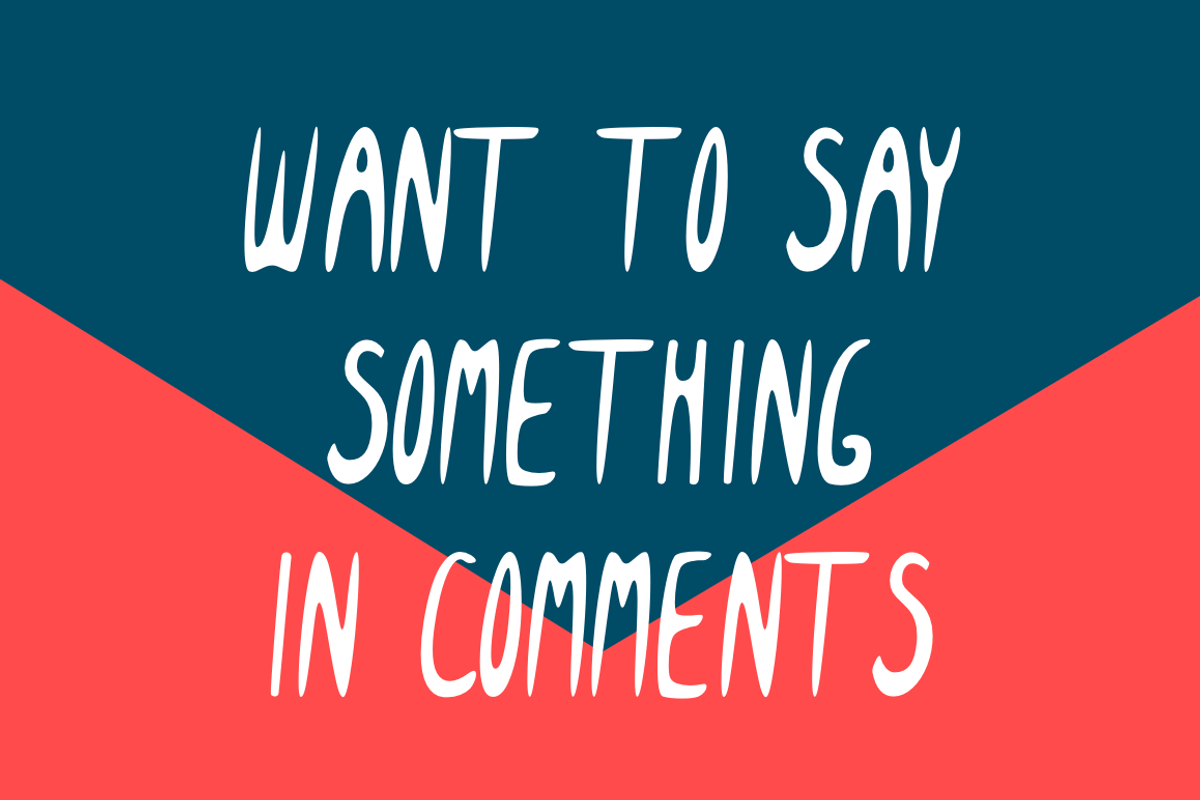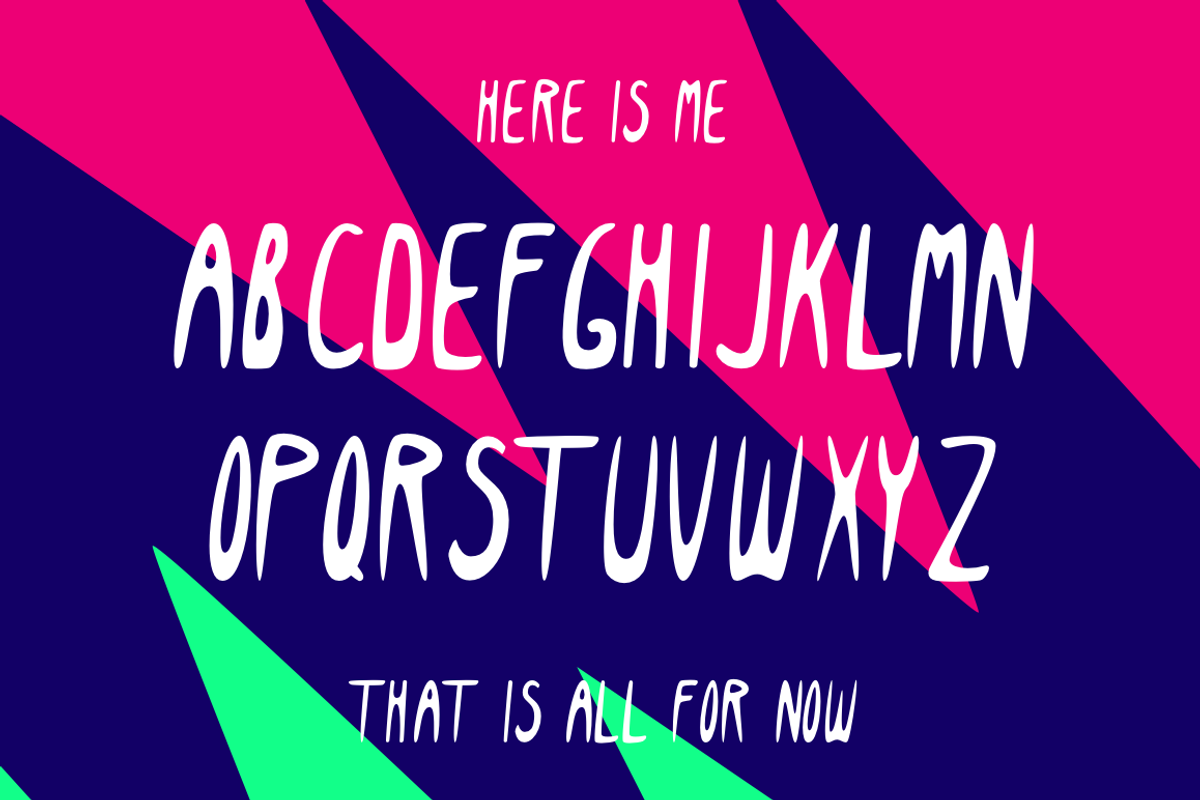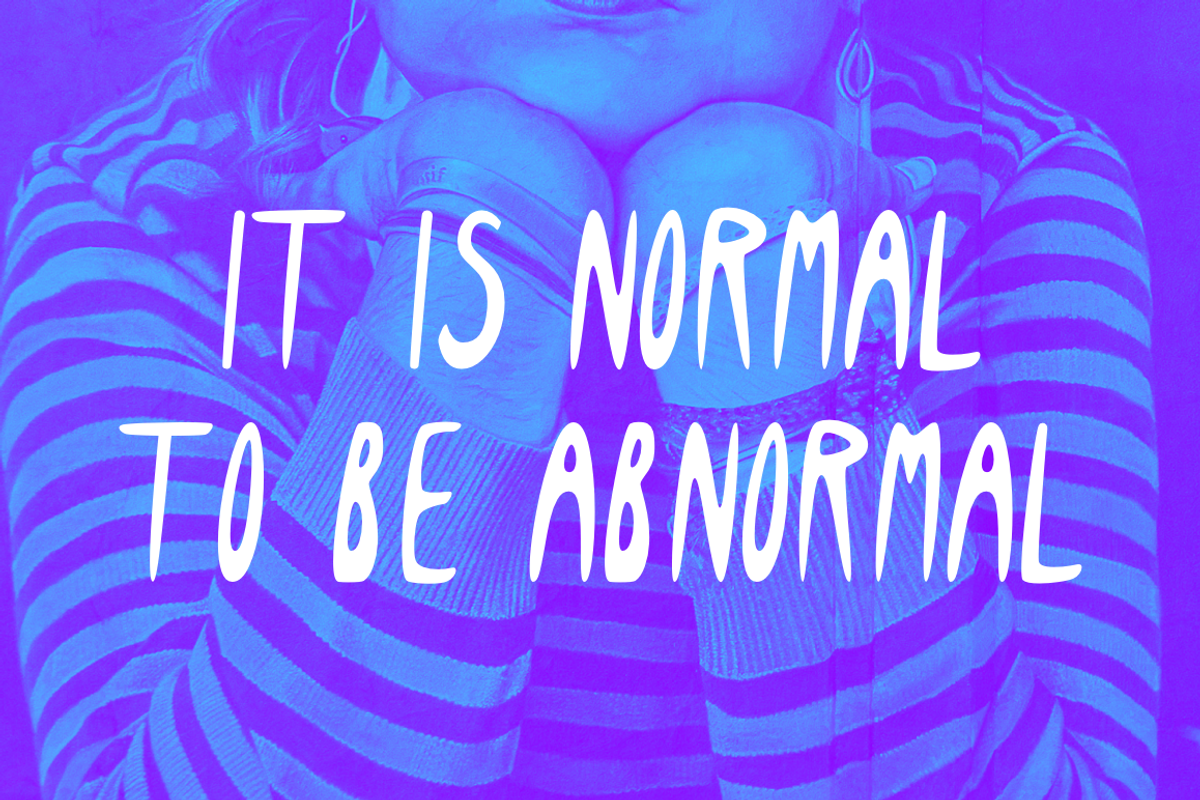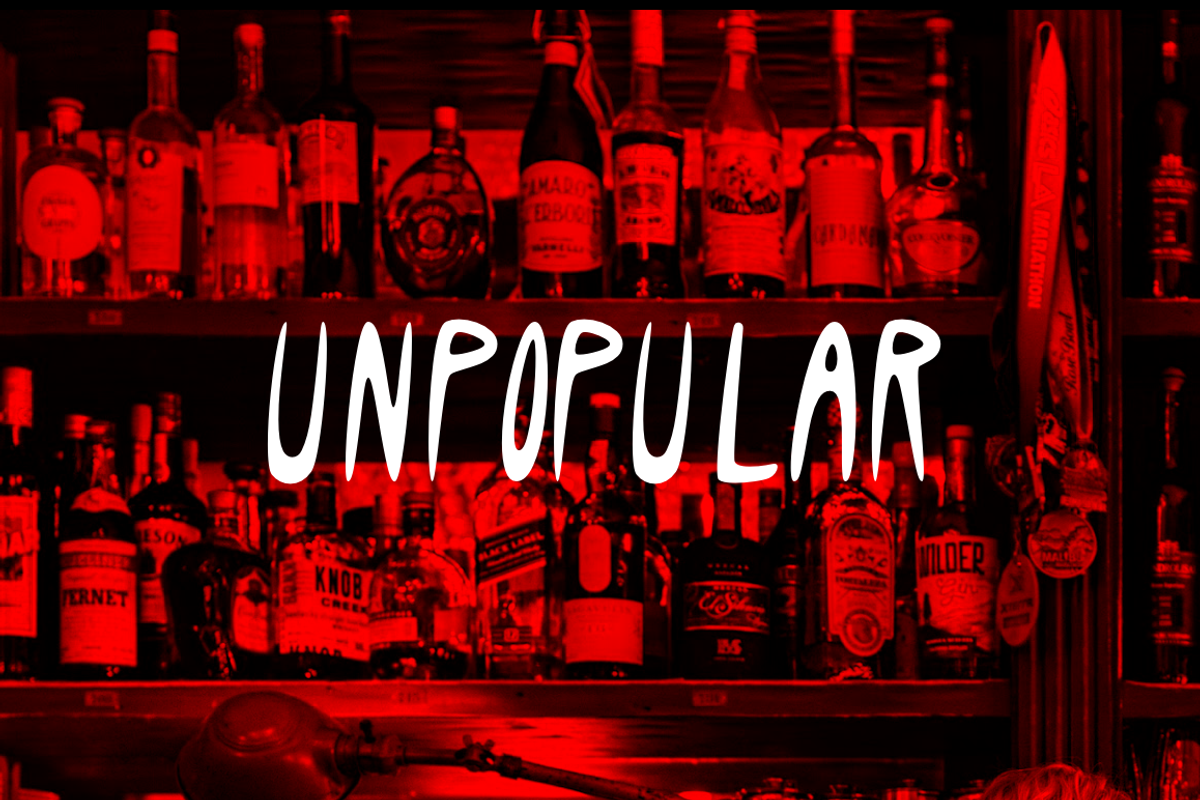
Maker Creepy Font, Raw-1
Maker Creepy Font, Raw-1 by Samoylov is a font selected for branding, posters, packaging, typography.
Maker Creepy Font, Raw-1 by Samoylov fits naturally into Branding, posters, packaging, typography.